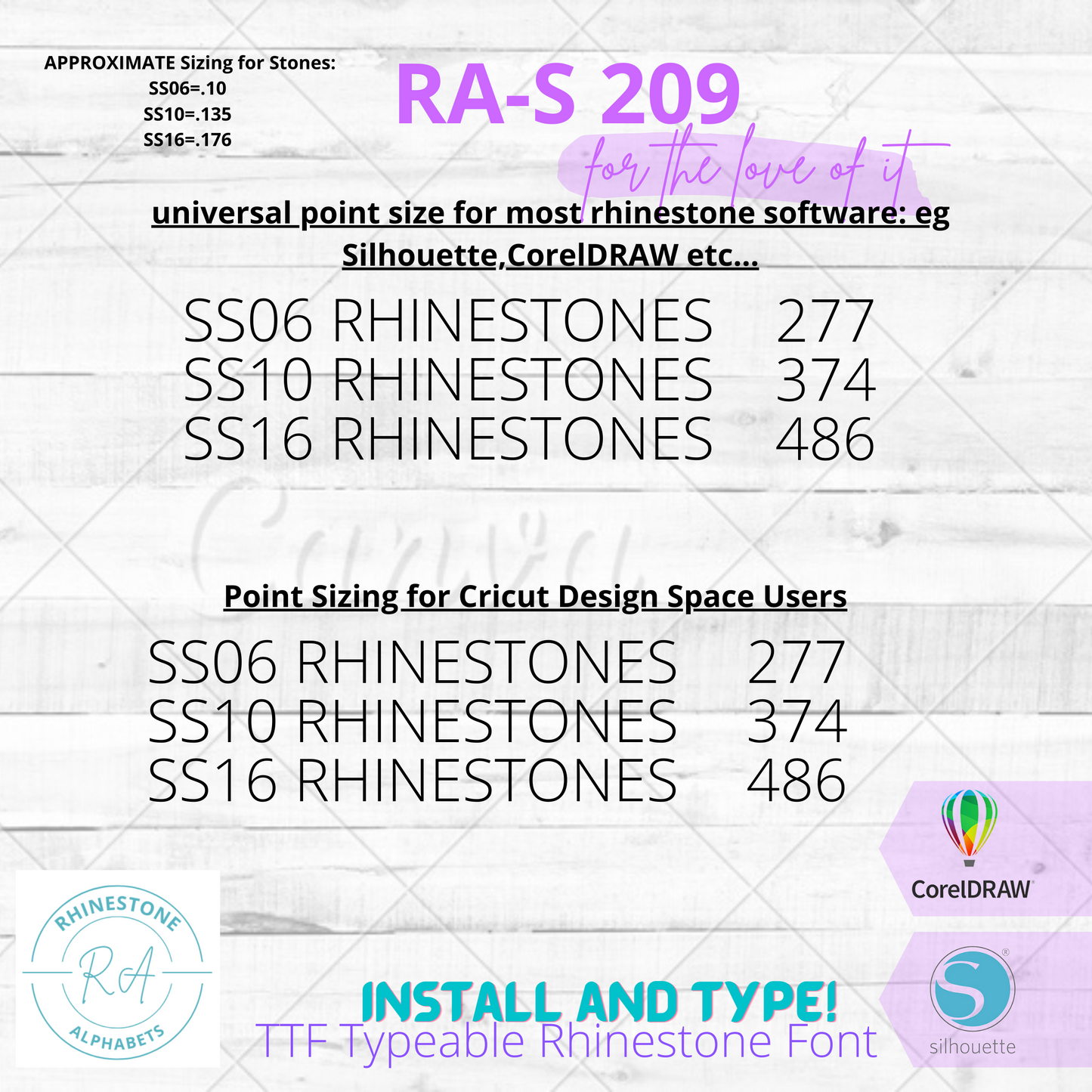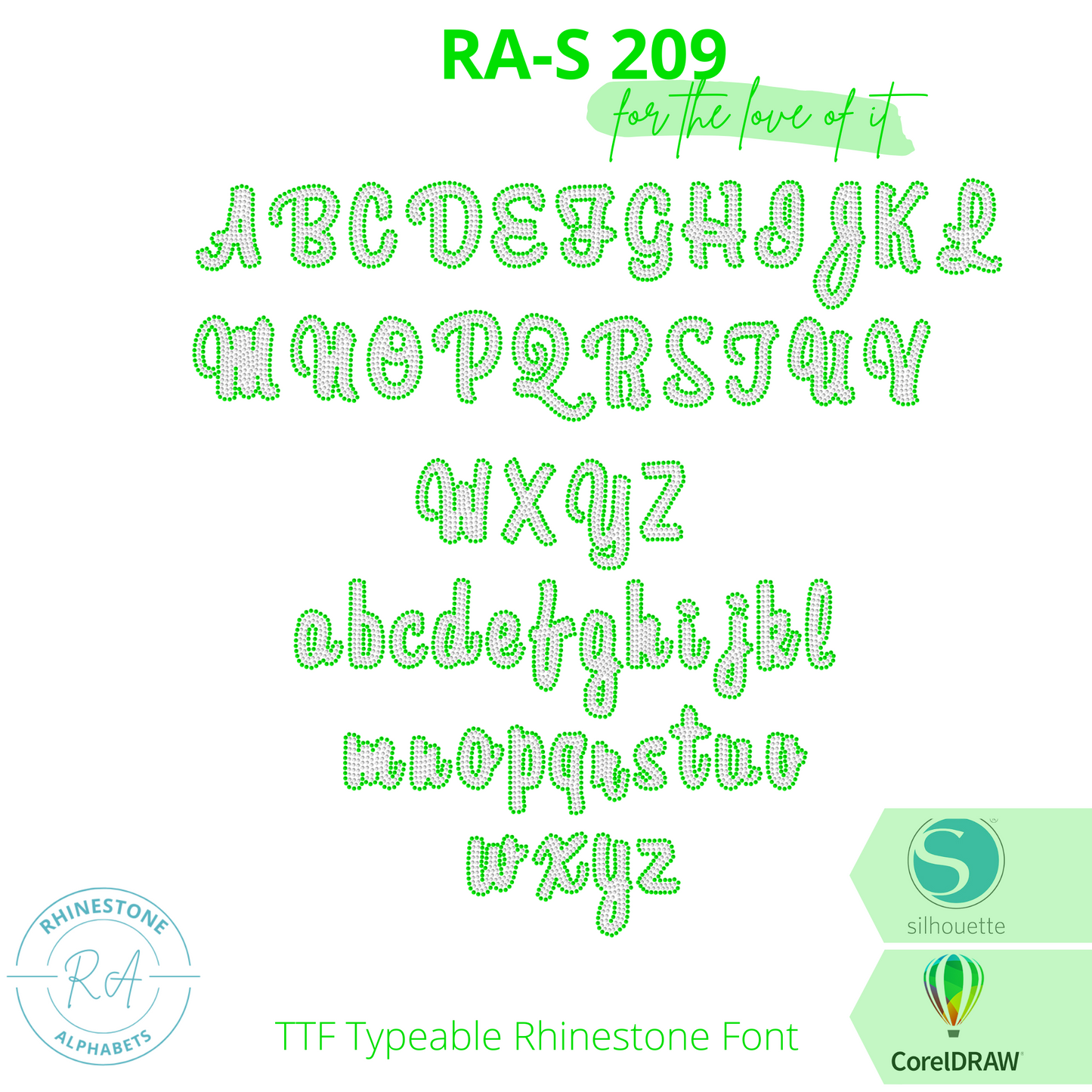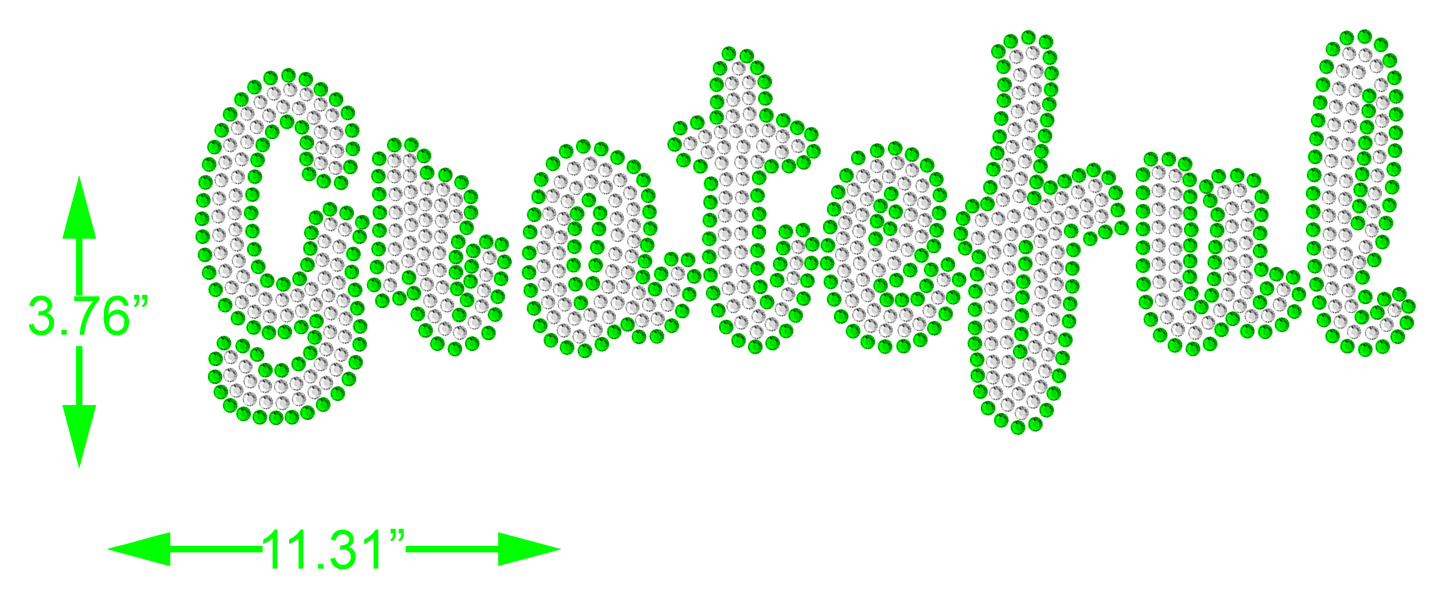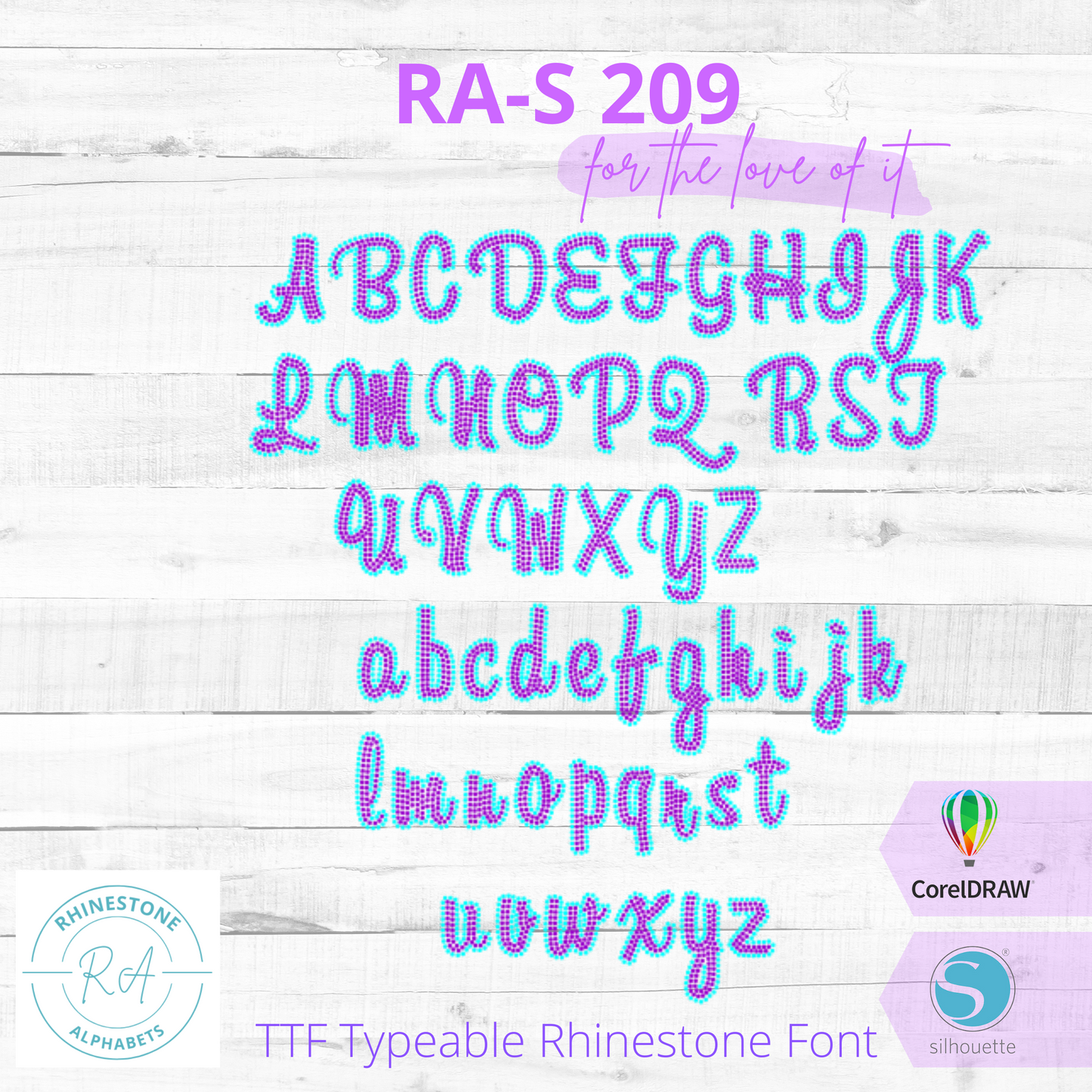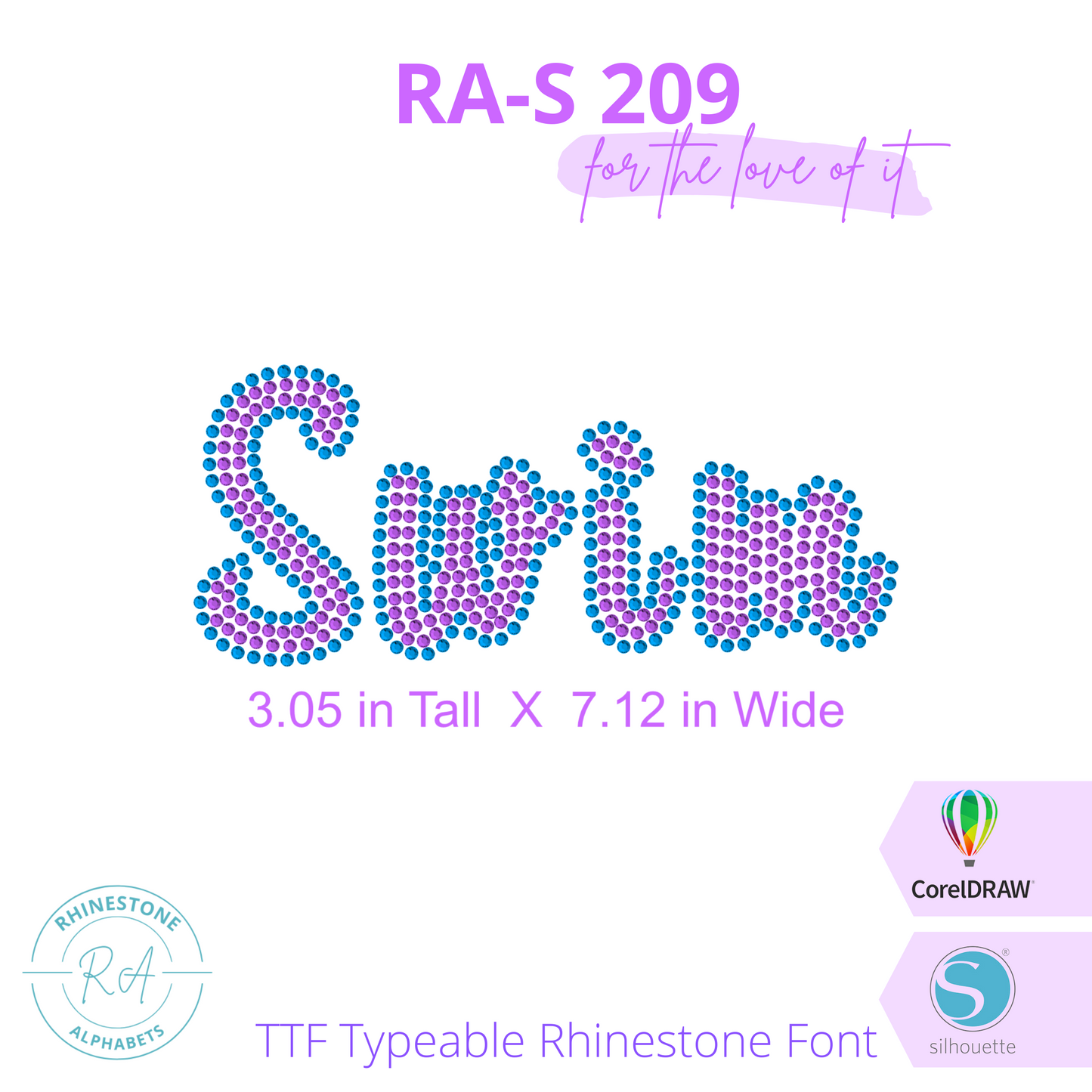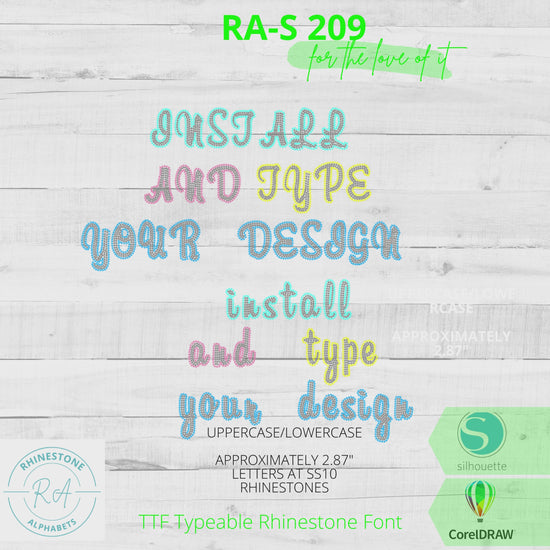
RA-S 209 Combo
uppercase/lowercase
2.87"
Combo
This is a beautiful Combo font. If you use caps lock on your keyboard you will get the outside of letters. Take the caps lock off and type to get the inside. then add your point value for the font size. That is it, it will line up perfectly.
note: the uppercase lettering is the first font, and the second font is the lower case lettering.